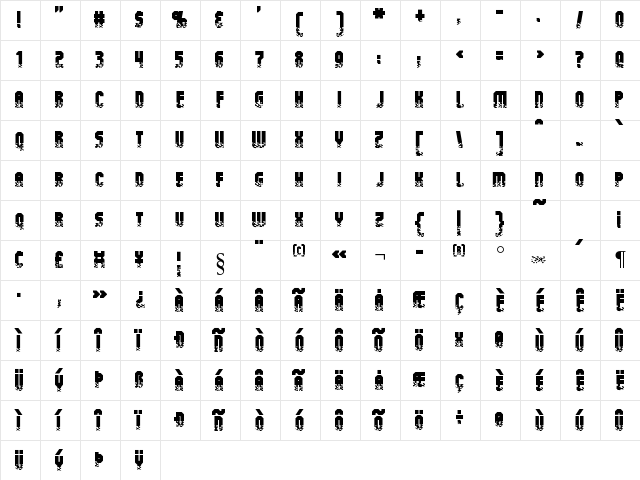
Alpha Mutation Regular
Foundry: Pixel Sagas
Designer: Neale Davidson
Complete Alpha Mutation Regular glyph index. Displaying only characters natively supported by Alpha Mutation Regular font.
Design Context for Alpha Mutation
Alpha Mutation is a composed and adaptable typeface that performs quietly and consistently across a wide range of design contexts.